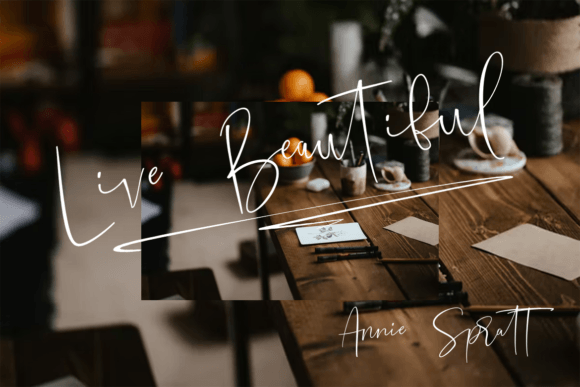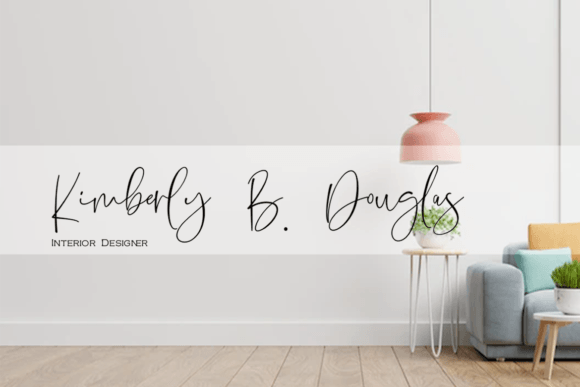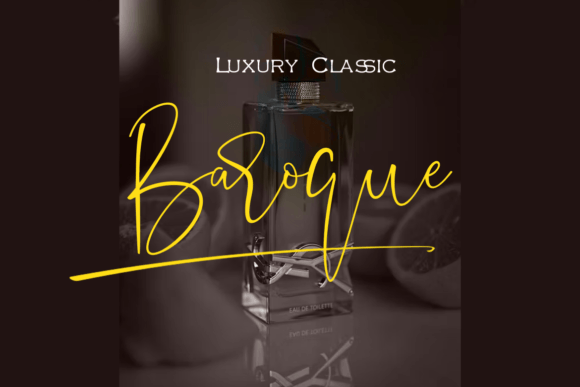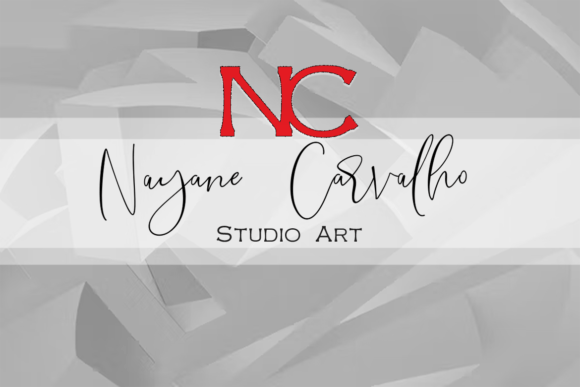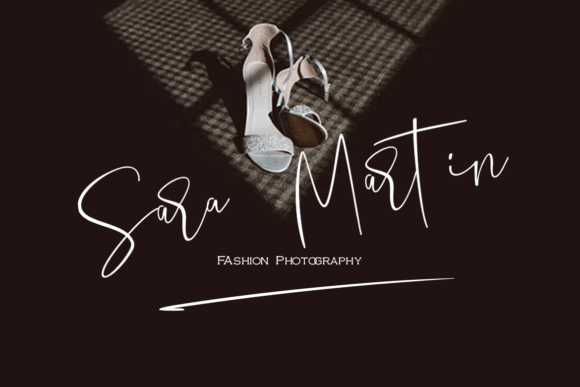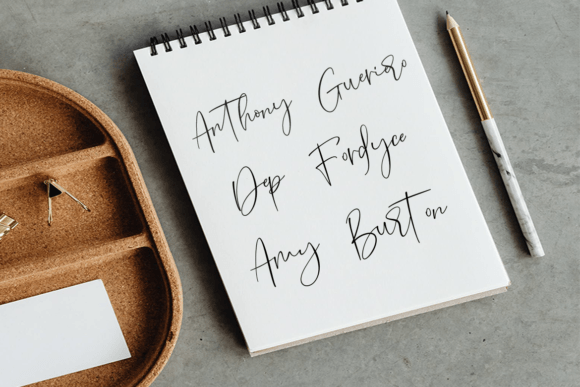
Introduction to Requests Font
Requests is a beautiful and modern signature script.
Requests It has a subtle style and will add a touch of class to your designs This font is perfect for branding, photography, invitations, quotes, watermarks, advertisements, labels, social media, and more.